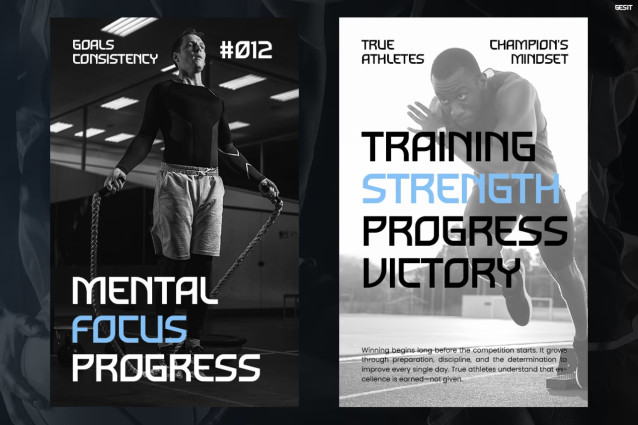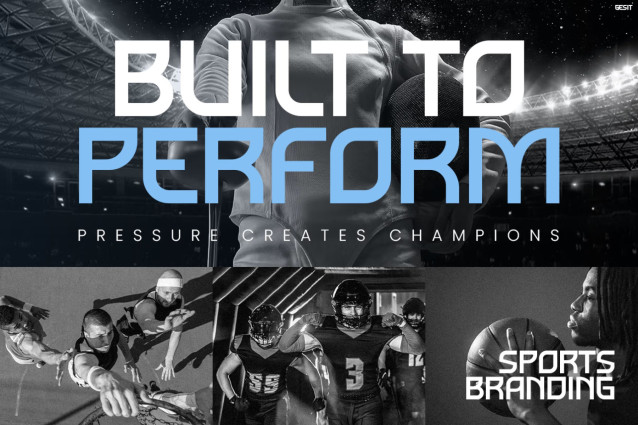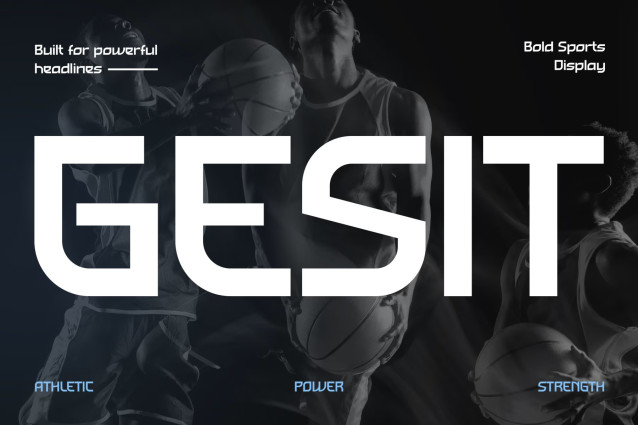
Gesit is a bold sports display font characterized by its wide, geometric letterforms and sharp, angular cuts. Designed with a futuristic and athletic aesthetic, its low-contrast structure and squared-off curves project a sense of power, speed, and modern strength.
Best suited for high-impact applications, this typeface is a natural fit for sports branding, fitness magazine headlines, gym promotions, athletic apparel design, esports graphics, and event posters. Use it at large display sizes to maximize its commanding visual presence.